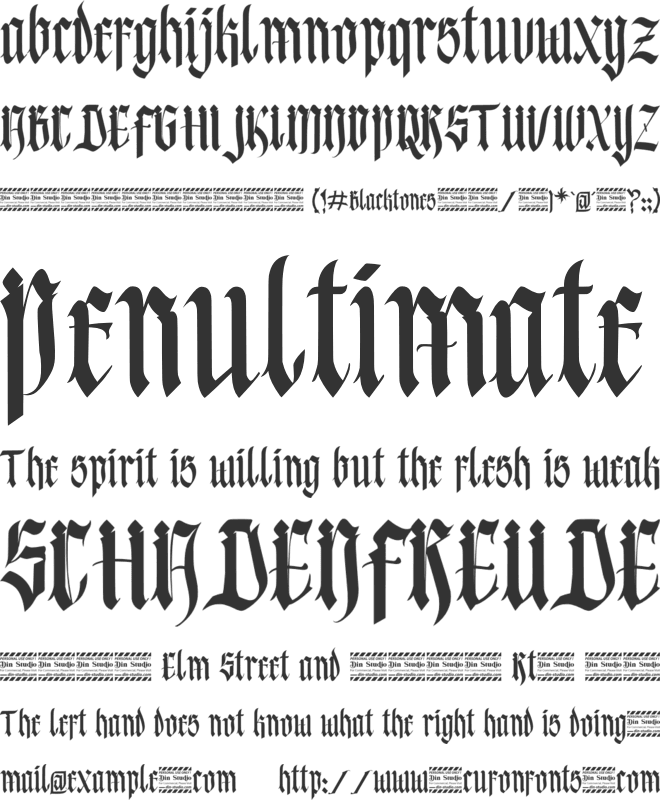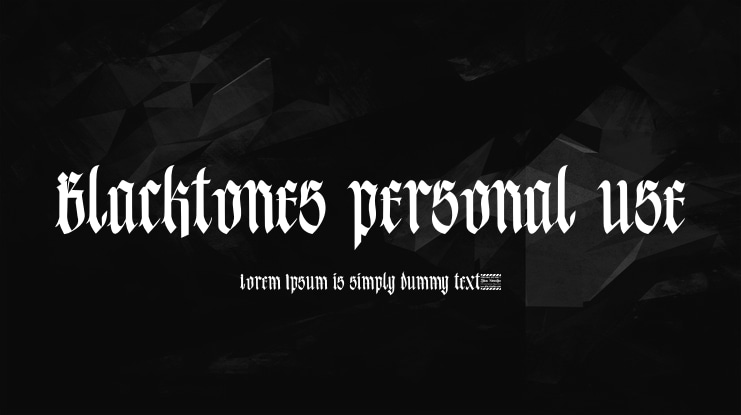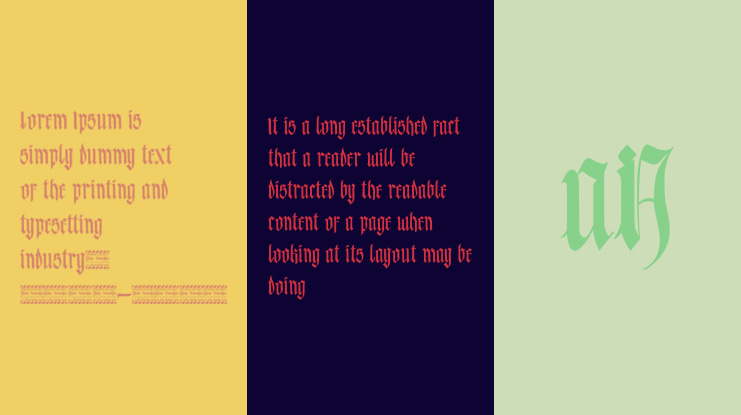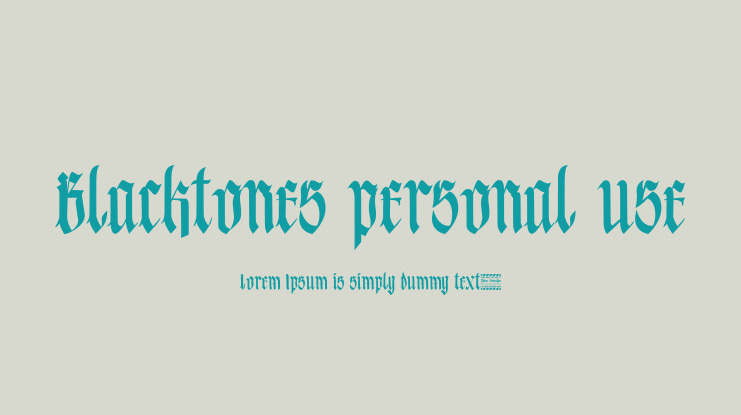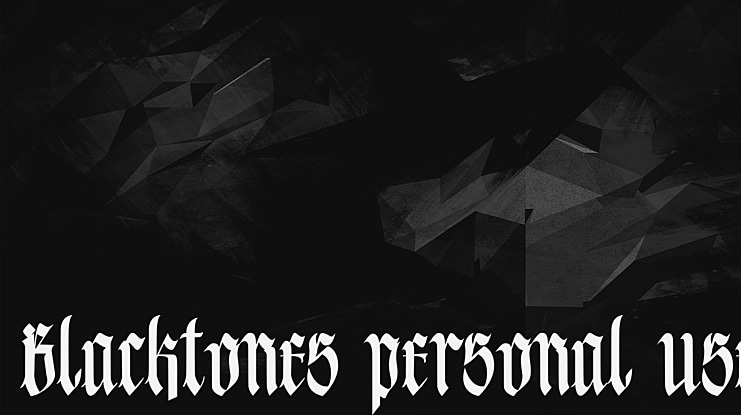
Blacktones is a simple blackletter font with big loopy letters. Perfect for adding a touch of whimsy to your already amazing designs. A real head-turner for your presentation, designs, branding, quotes, invitation, website illustrations, and much more.